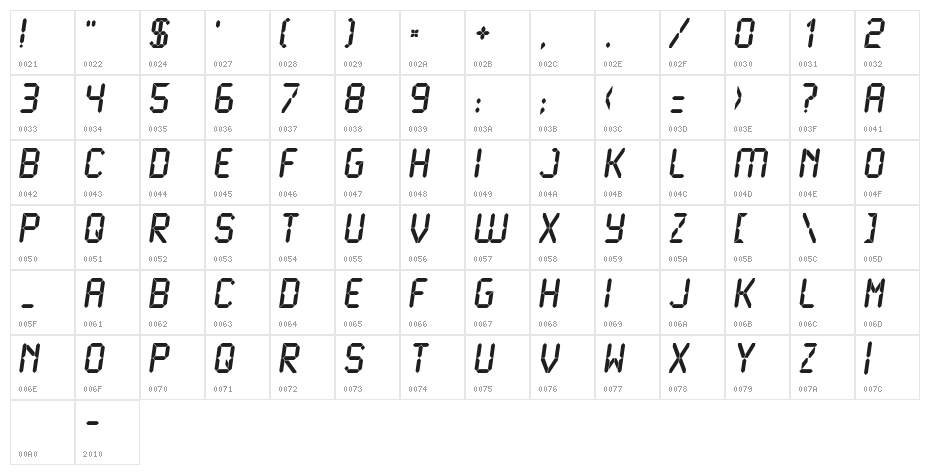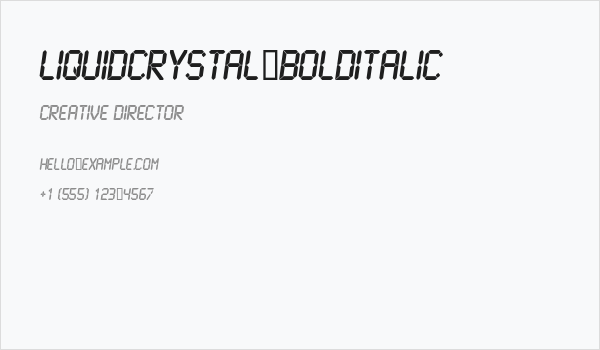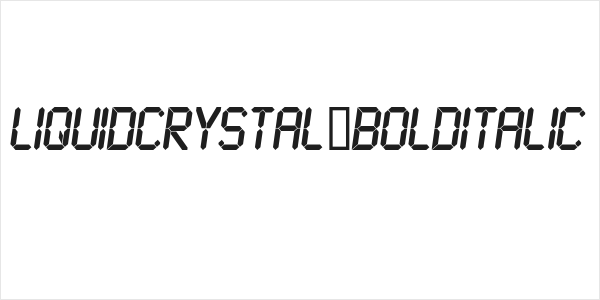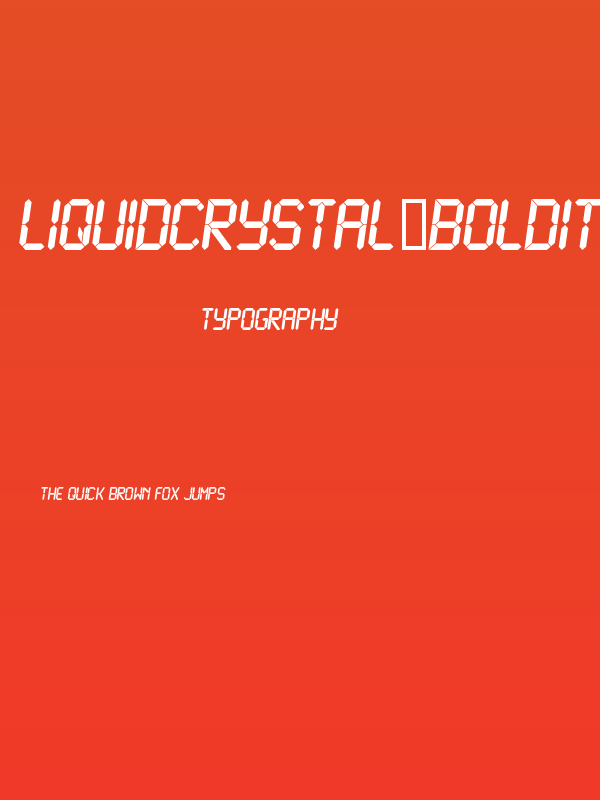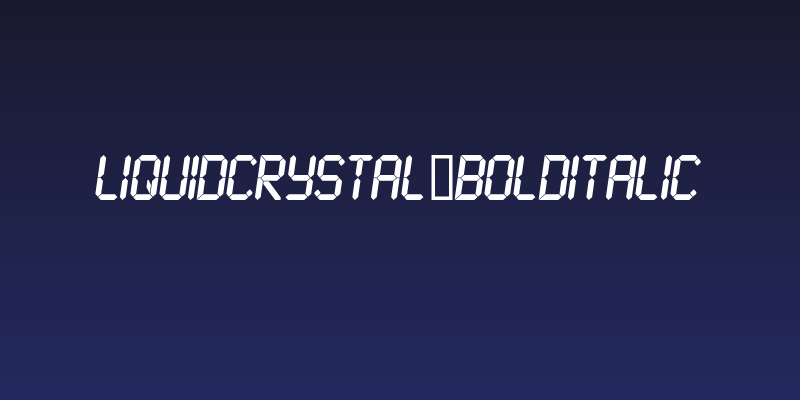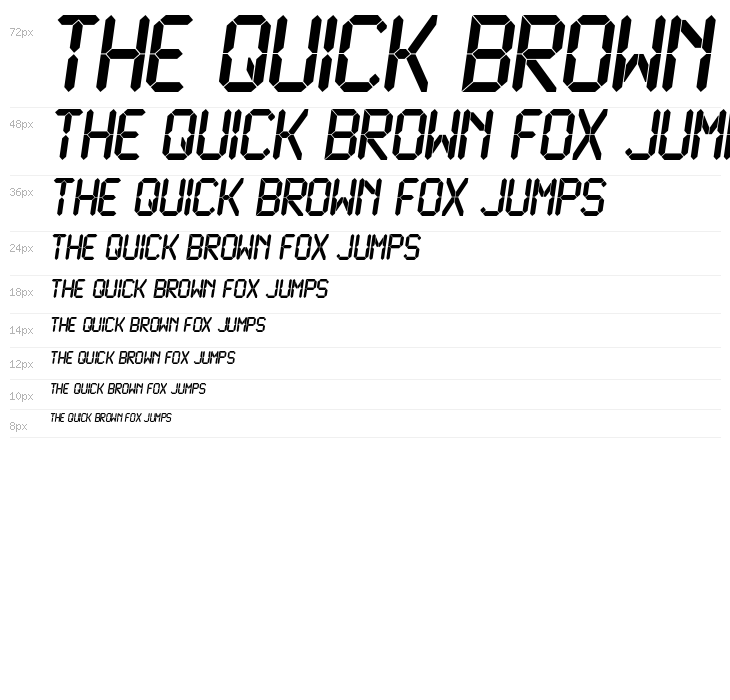
LiquidCrystal-BoldItalic Font
LiquidCrystal-BoldItalic Description
This font features a digital, segmented style reminiscent of old LCD displays. The characters are composed of angular, geometric shapes that mimic the look of digital clocks or calculators. Each letter and number is formed by a series of straight lines and angles, creating a distinct, tech-inspired appearance. The font is bold and italicized, adding a dynamic and modern twist to the classic digital look. The uppercase and lowercase letters maintain a consistent style, with the same segmented structure applied throughout. The numbers and special characters follow the same design principles, ensuring uniformity across all glyphs.
| Use Case | Headlines, Logos, Digital displays |
| Proposed Projects | Ideal for tech-themed projects, digital displays, retro designs, and futuristic branding. |